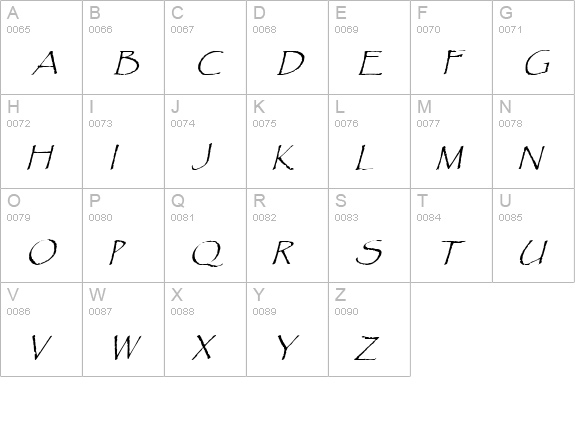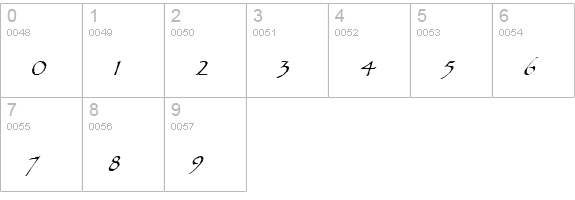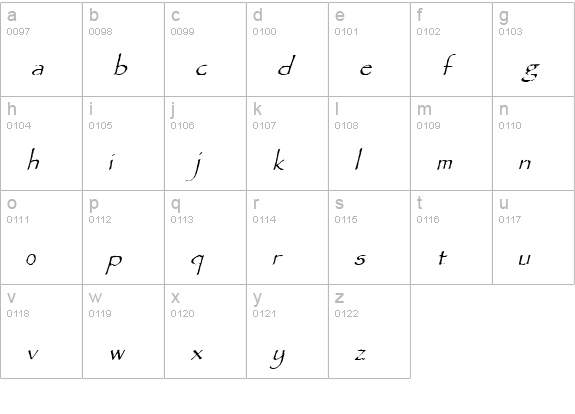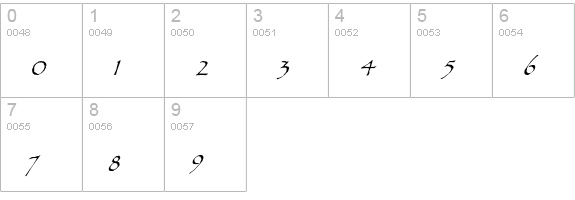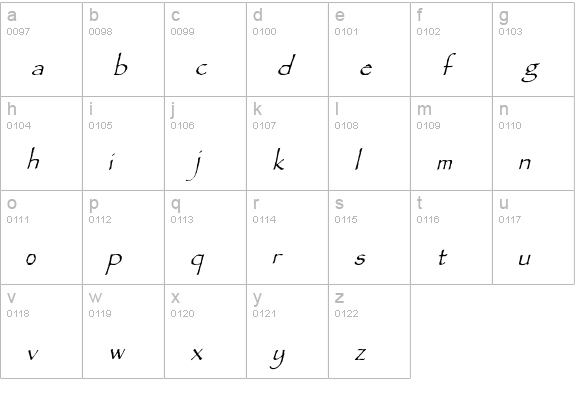
Paradox Italic Font Details
Paradox Italic is a distinctive, italic variant in the Paradox typeface family \xE2\x80\x94 well suited to design and typography projects.
Introducing Paradox Italic, a stunning and versatile font that pushes the boundaries of typographic design. This font beautifully combines elegance with a touch of edginess, creating a harmonious paradox that is sure to captivate any reader. Paradox Italic features sleek and distorted letterforms, effortlessly blending contemporary style with a hint of retro charm. Its unique and mesmerizing curves convey a sense of dynamism and fluidity, making it perfect for projects that require a modern and eye-catching aesthetic. This font is not only visually striking but also highly functional, ensuring legibility and readability across various mediums. Whether it's used for headlines, titles, branding, or body text, Paradox Italic brings a distinct personality to any design, leaving a lasting impression on its audience. But what truly sets Paradox Italic apart is its availability - it is freely available to download at FontsMarket.com. Yes, you read that right! This exceptional font can be yours without any cost, allowing you to unleash your creativity without breaking the bank. So why wait? Take advantage of this fantastic opportunity and elevate your designs with the bold and captivating Paradox Italic font today.